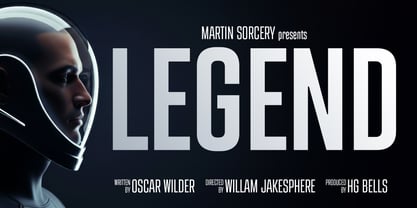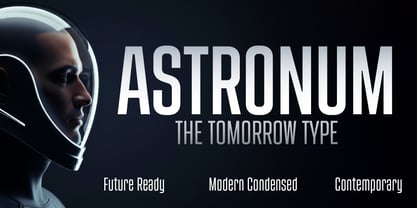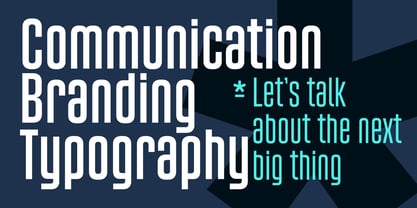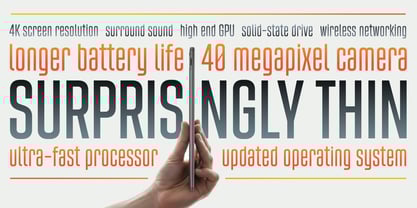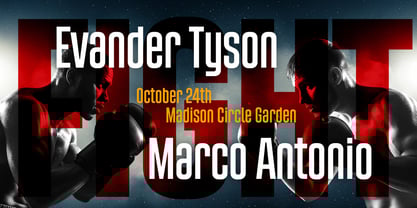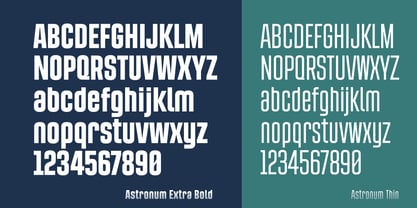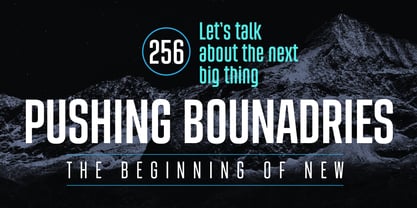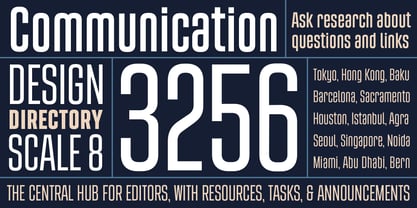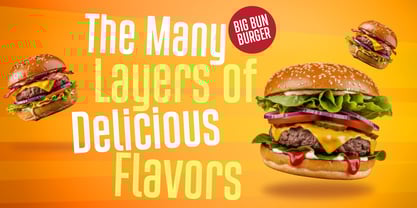
Astronum
by Graphite
The Astronum Font Family was designed by Deepak Dogra and published by Graphite. Astronum contains 7 styles and family package options. More about this family
Astronum is a modern, futuristic sans-serif typeface designed for clarity, impact, and versatility. Featuring tall proportions, clean geometry, and smooth curves, Astronum balances a sleek technological feel with excellent readability. Its streamlined letterforms and minimal detailing make it ideal for branding, editorial headlines, user interfaces, posters, and contemporary advertising. Balancing strength with sophistication, Astronum transitions effortlessly from dynamic sports branding to high-end technology campaigns, from bold posters to refined minimalist packaging. Available in multiple weights, Astronum adapts seamlessly from bold statements to refined, lightweight compositions, perfect for forward-looking design projects.
Designers: Deepak Dogra
Foundry: Graphite